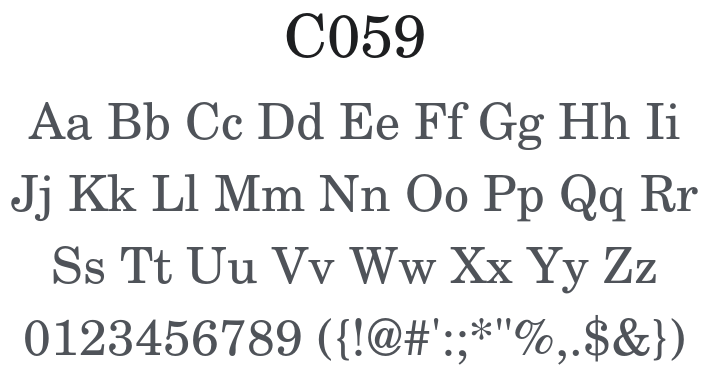
C059 Font Family
by URW++
About C059
C059 is a transitional serif typeface from URW++ included in the URW Base35 open-source font package, a set of 35 fonts metrically compatible with the PostScript Level 2 core font set. Serving as a free alternative to Century Schoolbook, C059 features wide letterforms, generous x-height, and sturdy strokes that make it highly legible for textbooks, children's literature, and body text applications.